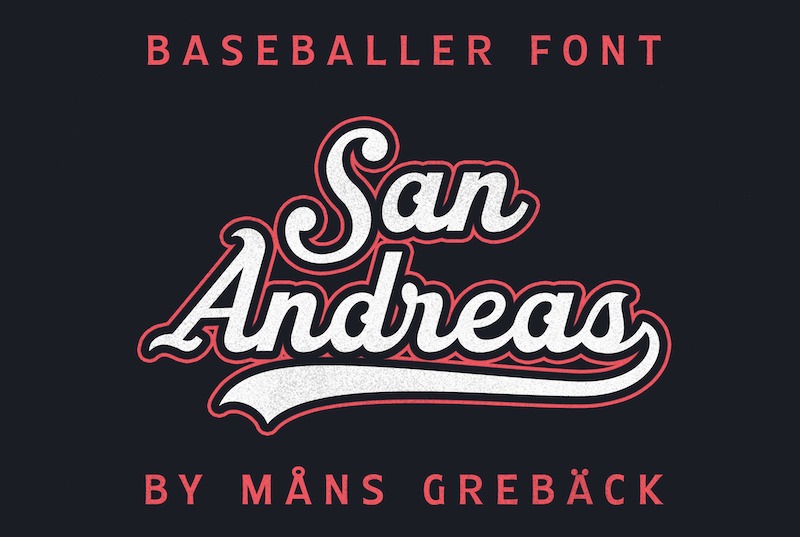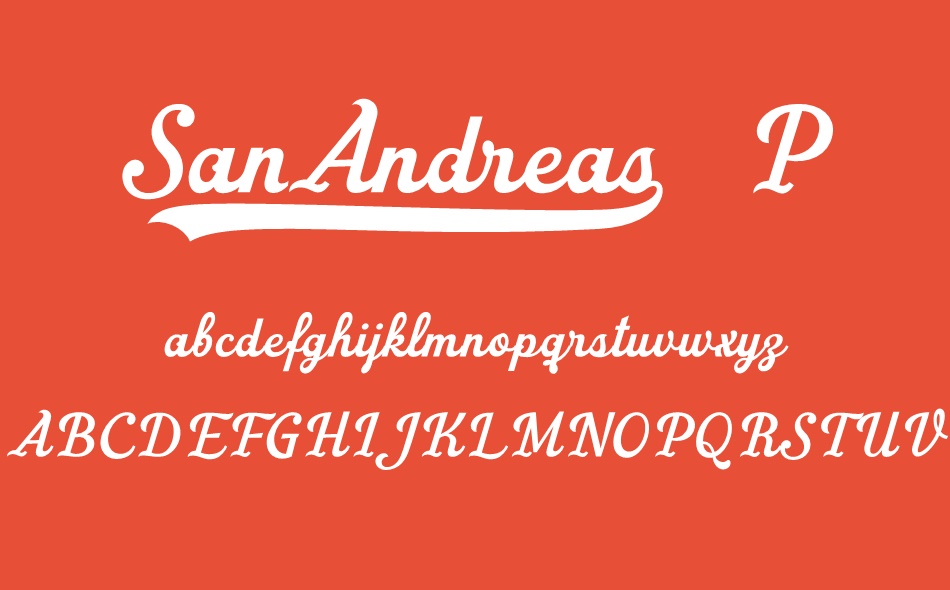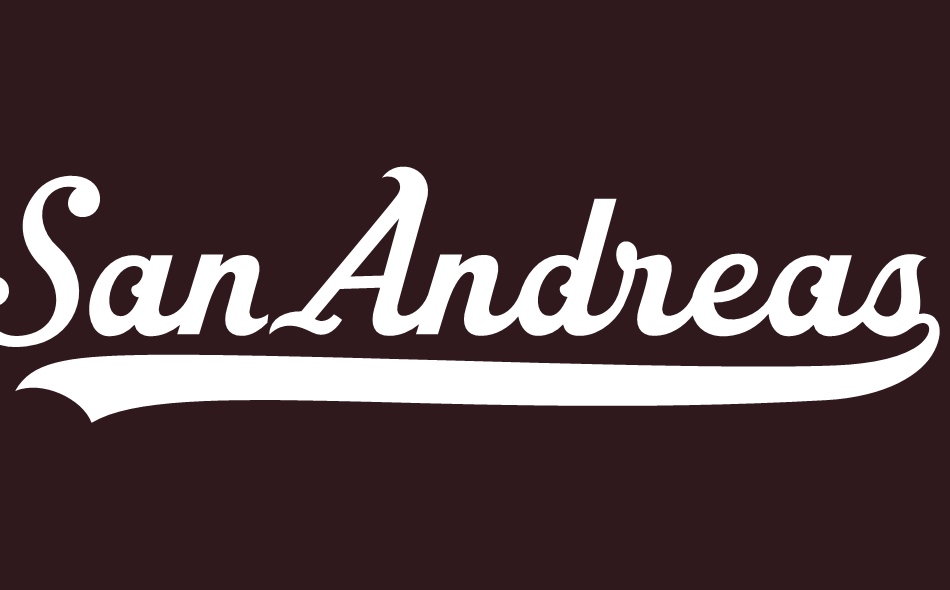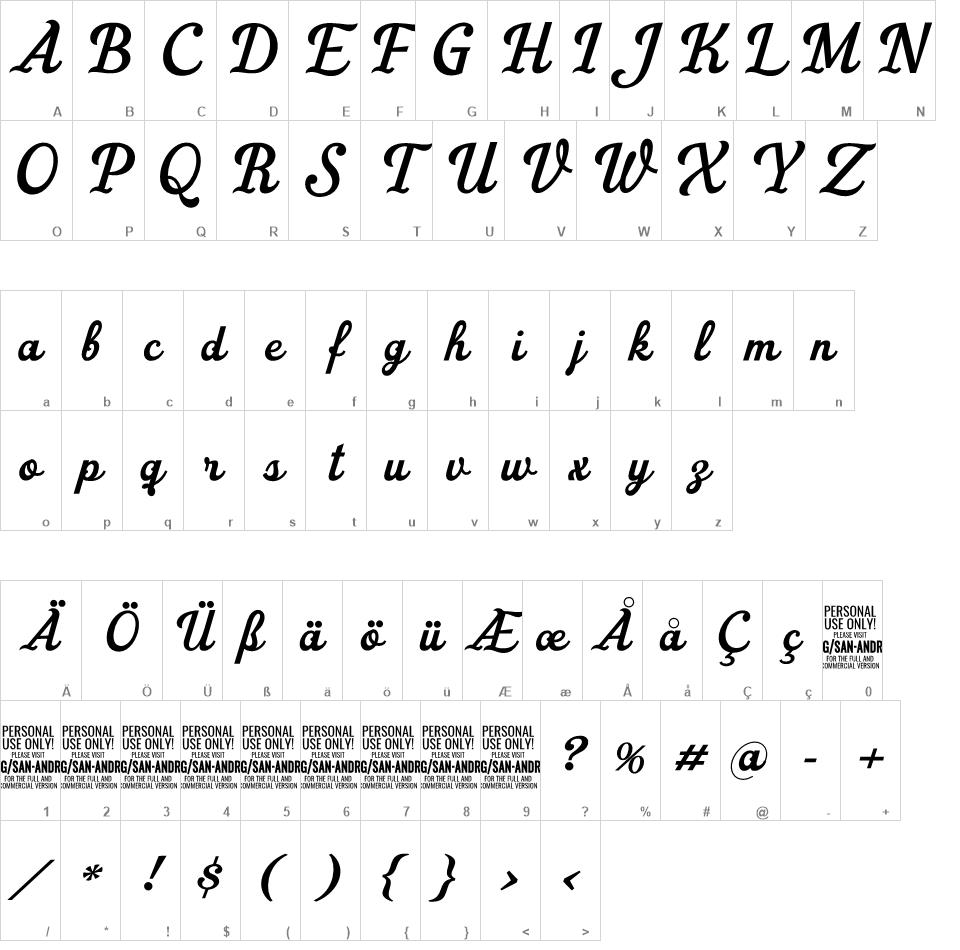
San Andreas font
Use underscore _ to make a swash. Example: Baseball_
Use multiple underscores to make swashes of different lengths. Example: Athletics______
San Andreas is a sport script font.
Drawn and created by Mans Greback in 2021, this logotype lettering has a distinct retro style and a strong vintage personality, with a combination of soft brushes and strict backbones.
Use underscore _ to make a swash. Example: Baseball_
Use multiple underscores to make swashes of different lengths. Example: Athletics______
San Andreas is built with advanced OpenType functionality and has a guaranteed top-notch quality, containing stylistic and contextual alternates, ligatures and more features; all to give you full control and customizability.
The font has extensive lingual support, covering all Latin-based languages, from North Europa to South Africa, from America to South-East Asia.
It contains all characters and symbols you'll ever need, including all punctuation and numbers.